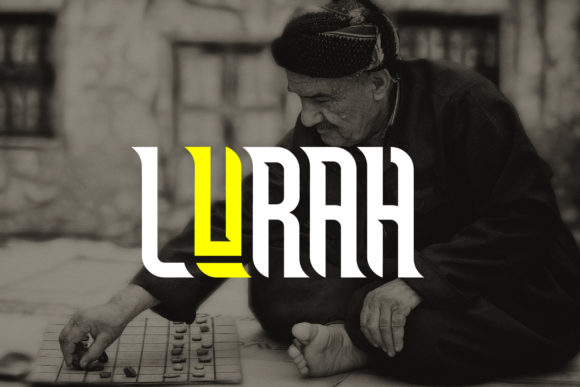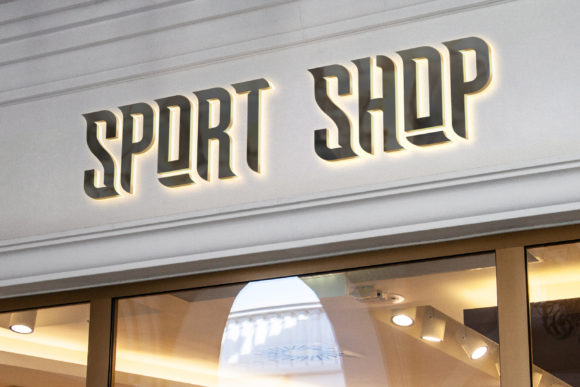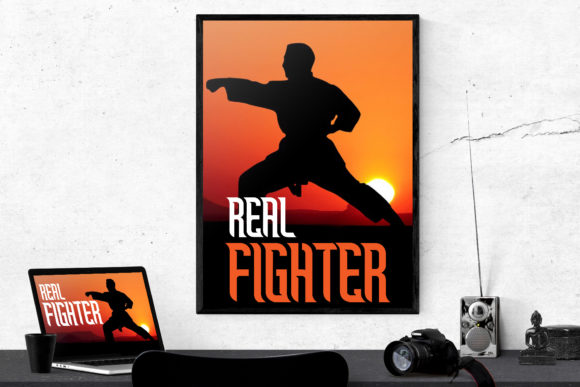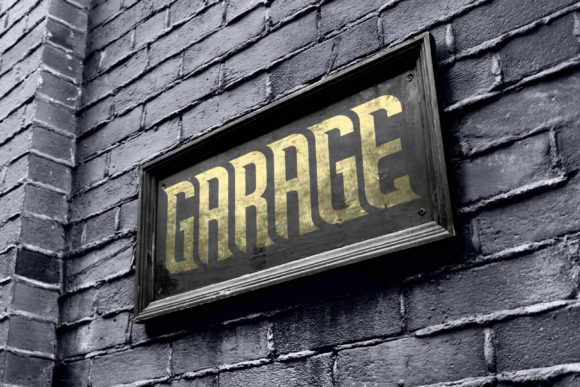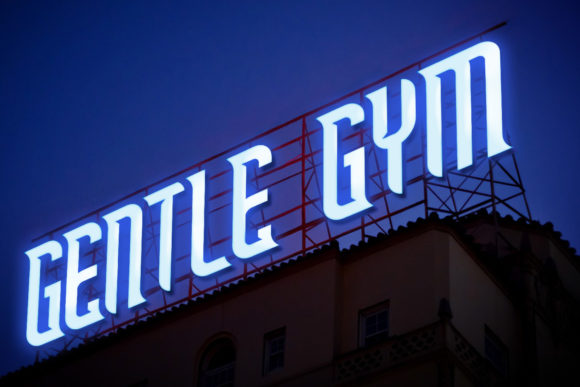
Introduction to Lurah Font
As designers, we’ve all been there – stuck on a creative project, desperately searching for the perfect font to bring our vision to life. It’s those moments of frustration that often lead us to stumble upon a hidden gem, a game-changing design resource that makes all the difference. For me, that gem is the Lurah Font, a striking uppercase typeface that exudes a minimal, high-quality feel perfect for games or sports-themed design projects.
With its clean lines and transparent background, the Lurah Font is an absolute delight to work with, offering endless possibilities for creative expression. Whether you’re designing a logo, a website, or a social media campaign, this versatile font is sure to elevate your design to the next level.
Key Features of Lurah Font
- Unique, modern design aesthetic that can add a touch of sophistication to any creative project.
Honest Review: Lurah Font
I recently had the chance to work with the Lurah Font on a creative project and I must say it’s been a game-changer. As a designer, I’m always on the lookout for high-quality design resources that can elevate my work and the Lurah Font definitely delivers.
What works well is its clean and modern design that lends itself perfectly to a variety of creative projects. The font is highly versatile and can be used for both print and digital applications, making it a great addition to any designer’s toolkit.
- ✨ Clean and modern design that’s perfect for creative projects
- ✨ Highly versatile and can be used for both print and digital applications
- ✨ High-quality design resource that’s perfect for designers
One limitation of the Lurah Font is that it doesn’t come with a transparent background option, which can be a bit limiting for designers who need to create graphics with custom backgrounds.
Overall, I’m very impressed with the Lurah Font and would highly recommend it to any designer looking for a high-quality design resource. Its clean design and versatility make it a great addition to any creative project.
Common Use Cases for Lurah Font